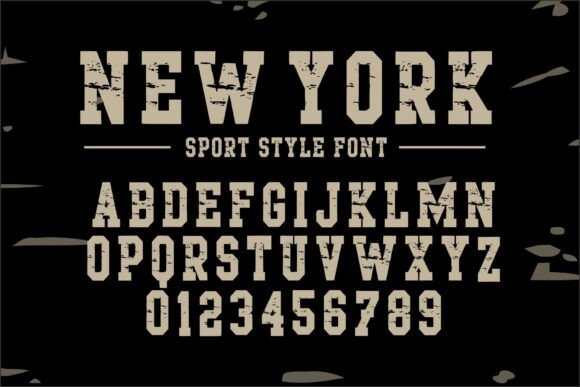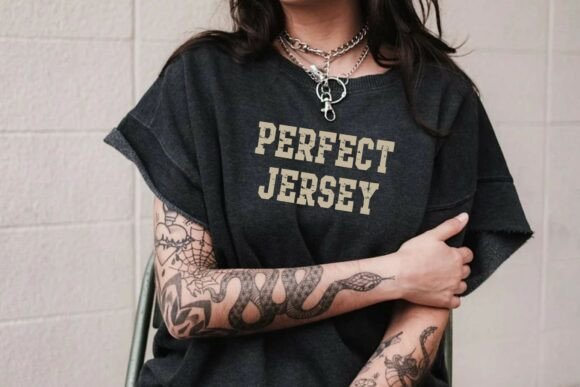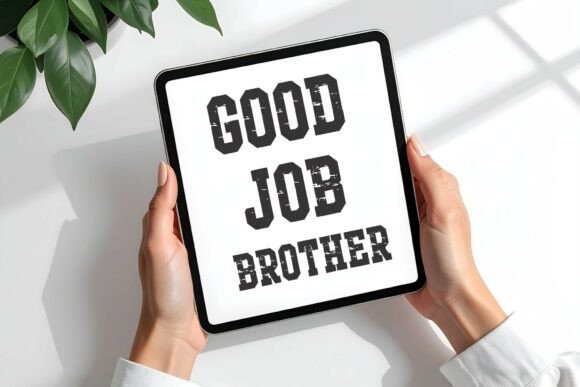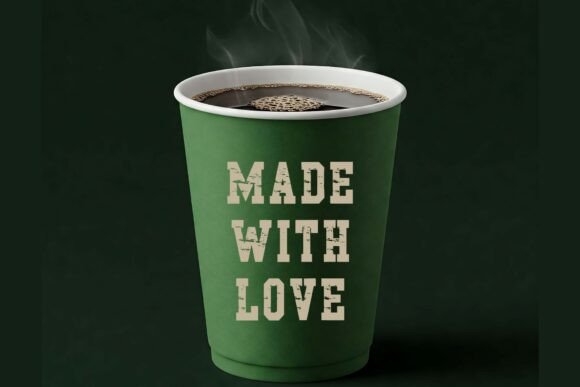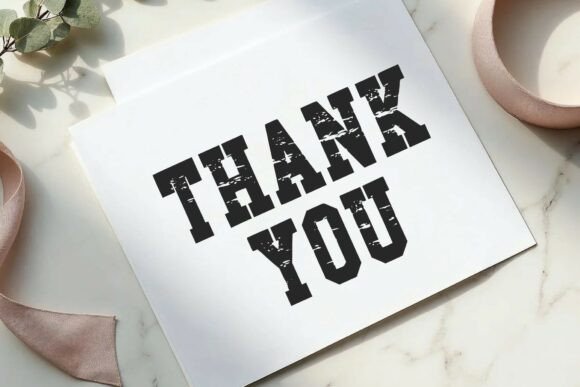
Introducing Authentic Sport: The Ultimate Display Font for Sports and Design Enthusiasts
Are you a designer, craftor, or sports enthusiast looking for a font that embodies the spirit of classic varsity lettering and vintage sports aesthetics? Look no further than Authentic Sport, a bold and confident display font that’s sure to elevate your designs to the next level. In this article, we’ll dive into the world of Authentic Sport, exploring its unique features, design inspiration, and the ways in which it can be used to create stunning visual content.
The Inspiration Behind Authentic Sport
Authentic Sport is a font that’s deeply rooted in the rich history of sports typography. Its design is inspired by the classic varsity lettering and vintage sports aesthetics of the past, evoking memories of old-school college designs, sports teams, and athletic events. The font’s creator sought to capture the competitive energy and timeless style of these classic designs, distilling them into a modern font that’s both bold and precise.
Design Features of Authentic Sport
So, what makes Authentic Sport so unique? Here are just a few of its standout features:
- Thick, solid lines: Authentic Sport boasts thick, solid lines that give it a sturdy, confident feel. These lines are perfect for creating bold, eye-catching headlines and titles that demand attention.
- Sharp serifs: The font’s sharp serifs add a touch of sophistication and elegance, balancing out the boldness of the lines. This combination of bold lines and sharp serifs creates a visually appealing contrast that’s sure to make your designs stand out.
- Retro power, modern precision: Authentic Sport is a font that’s deeply rooted in the past, yet perfectly suited for modern design applications. Its unique blend of retro style and modern precision makes it an ideal choice for designers looking to create bold, statement-making designs.
Uses for Authentic Sport
So, how can you use Authentic Sport in your designs? The possibilities are endless! Here are just a few ideas to get you started:
- Sports branding: Authentic Sport is a natural fit for sports teams, leagues, and events. Use it to create bold, eye-catching logos, jerseys, and marketing materials that capture the spirit of competition.
- College and university designs: The font’s classic varsity style makes it perfect for college and university designs, including diplomas, certificates, and marketing materials.
- Advertising and marketing: Authentic Sport is a font that’s designed to grab attention and make a statement. Use it in advertising and marketing campaigns to create bold, eye-catching headlines and titles that drive results.
- Merchandise and apparel: The font’s bold, confident style makes it perfect for use on merchandise and apparel, including t-shirts, hats, and other accessories.
Why Choose Authentic Sport?
With so many fonts to choose from, why should you choose Authentic Sport? Here are just a few reasons:
- Unique style: Authentic Sport boasts a unique style that’s unlike any other font on the market. Its blend of retro power and modern precision makes it a standout choice for designers looking to create bold, statement-making designs.
- Versatility: The font’s versatility makes it perfect for a wide range of design applications, from sports branding to advertising and marketing.
In conclusion, Authentic Sport is a bold and confident display font that’s perfect for designers, craftors, and sports enthusiasts looking to create stunning visual content. With its unique blend of retro power and modern precision, it’s an ideal choice for a wide range of design applications, from sports branding to advertising and marketing. Whether you’re looking to create bold, eye-catching headlines or statement-making logos, Authentic Sport is the perfect font for the job.